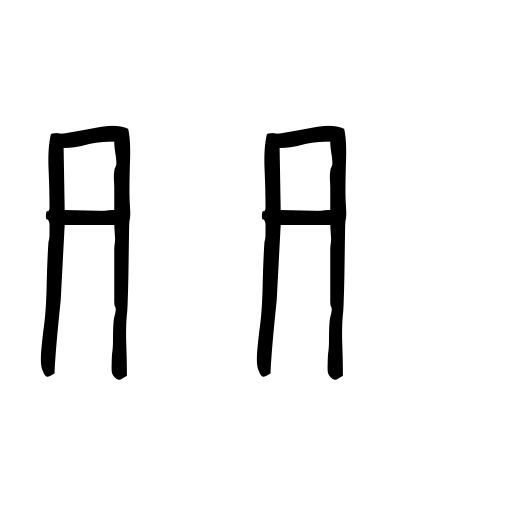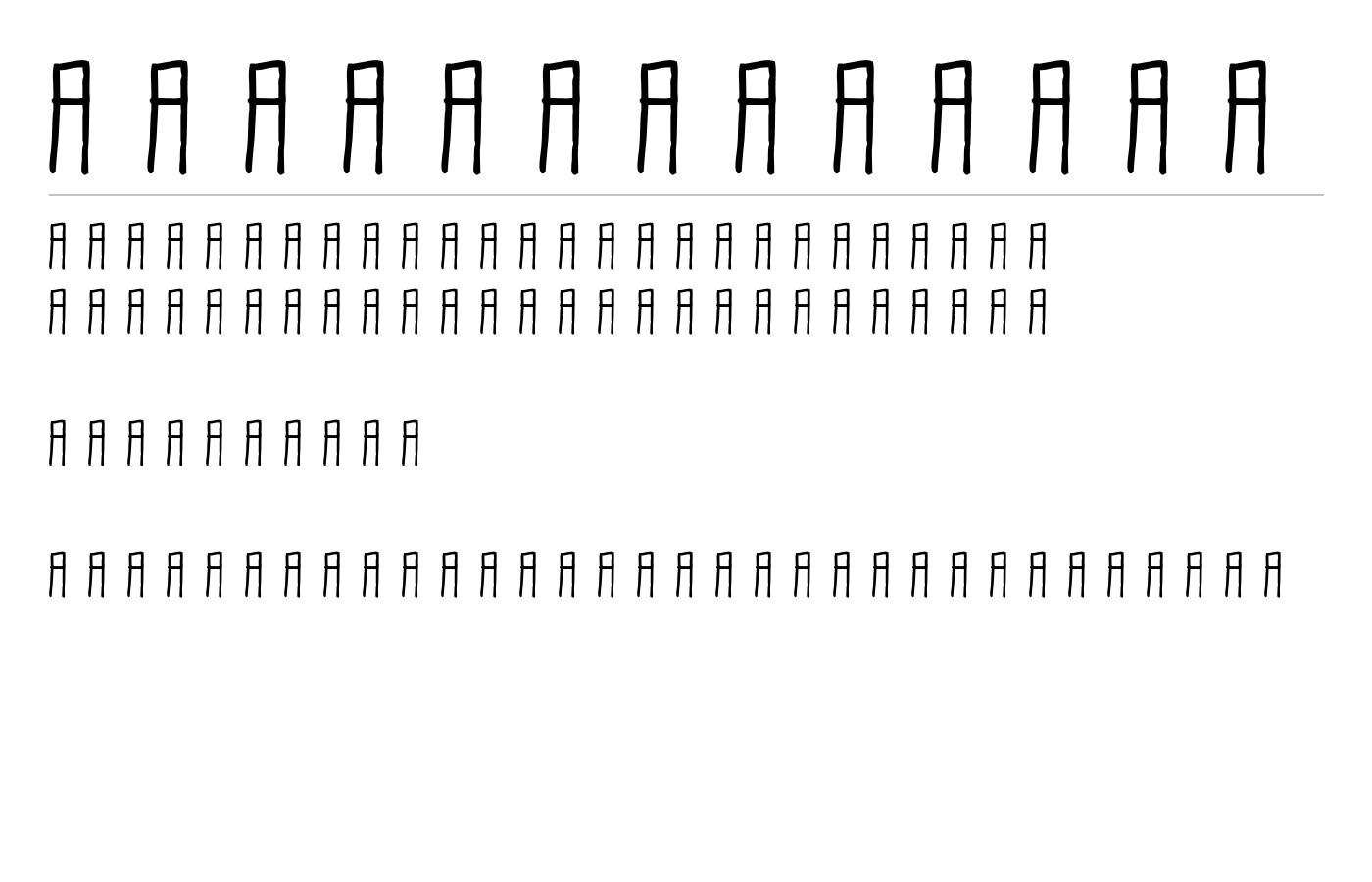
Block Negrita is a playful hand-drawn sans serif font characterized by its irregular, condensed letterforms and uneven strokes that give it a casual, quirky feel. Its tall x-height and narrow width make it ideal for eye-catching headlines, informal branding, or creative projects where a fun and approachable personality is desired. This font works well for posters, packaging, and editorial designs that want to stand out with a unique, handmade touch.
block negrita Font
About block negrita Font